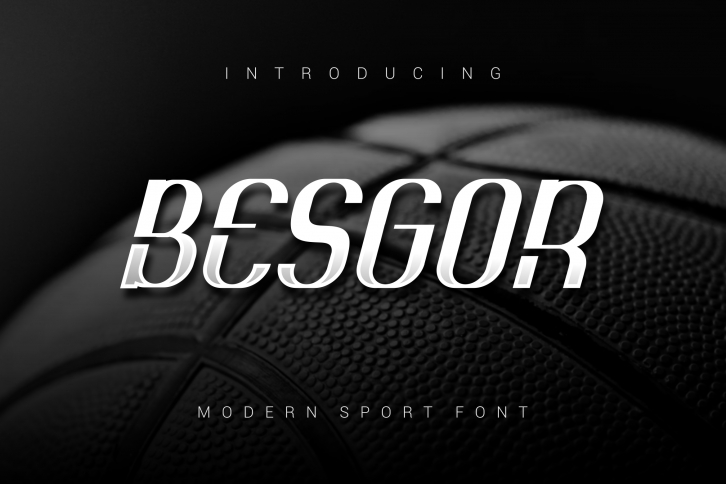
Besgor is a bold and authentic display font suitable for any branding project like logo, t-shirt printing, export, and many more. It looks outstanding in a wide range of contexts.